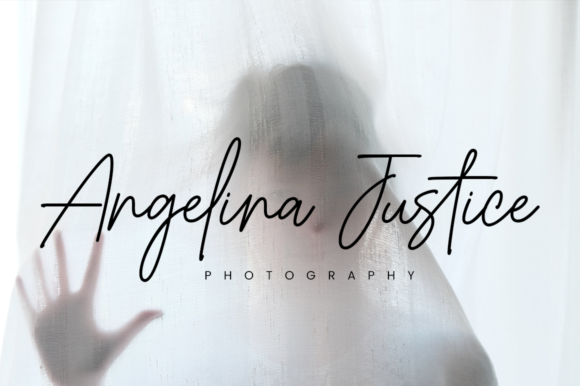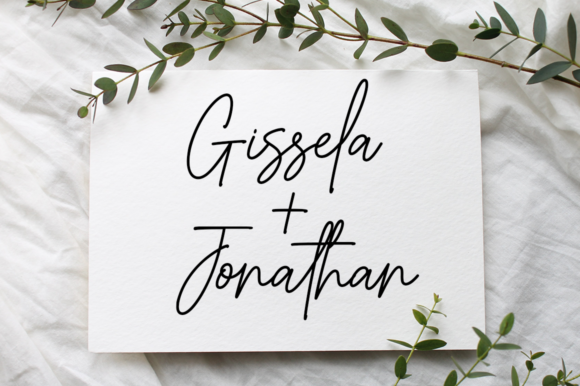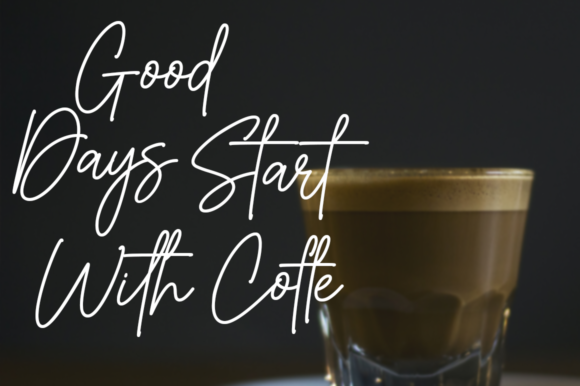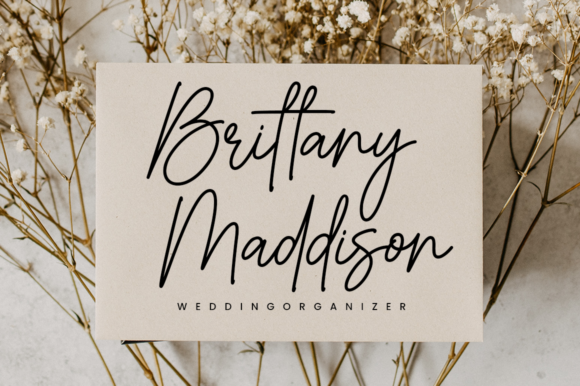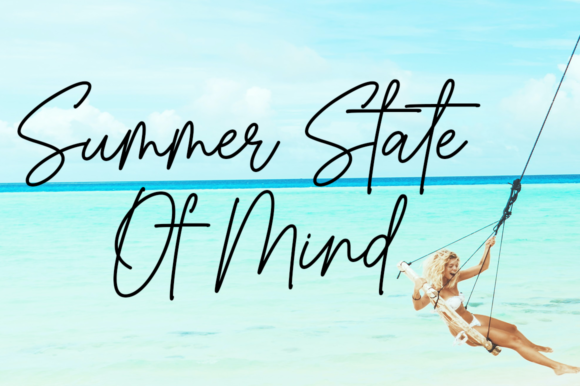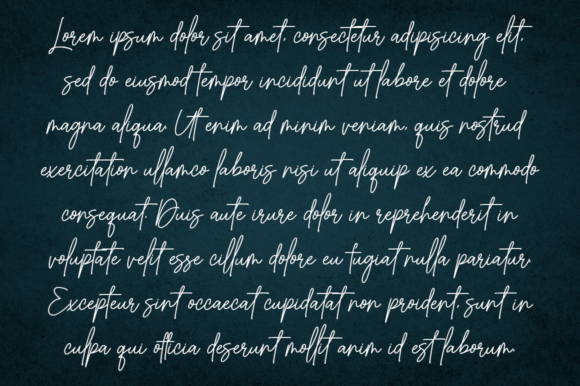
Introduction to Rockline Font
As a designer, there’s nothing quite like the rush of discovering a new, high-quality font that perfectly captures the essence of a creative project. For me, it was the moment I stumbled upon the Rockline Font – a delicate, thin-lettered handwritten font that seemed to whisper romance and elegance with every stroke.
With its PUA encoded design, accessing all the glyphs and swashes is a breeze, making it an absolute treasure trove for designers seeking to elevate their work. Whether you’re working on a free download project or a paid design resource, the Rockline Font is sure to bring a touch of sophistication and class to your creative endeavors. Its transparent background and high-quality design make it the perfect choice for designers who crave a little extra something special.
Key Features of Rockline Font
- High-quality font design, ideal for creative projects and design resources.
- Designed to be versatile and adaptable, suitable for various design applications, including logos, posters, and digital art.
- Features a unique, modern aesthetic that can add a touch of sophistication to any creative project.
Honest Review: Rockline Font
I recently had the chance to experiment with the Rockline Font, and I must say it’s a great addition to any design resource. The free download option was a nice surprise, making it accessible to designers of all levels.
The font itself has a high quality aesthetic, perfect for creative projects that require a modern and edgy look. I particularly appreciated the transparent background, which allows for seamless integration with various design elements.
- Modern and edgy design aesthetic
- High quality font
- May not be suitable for more traditional or formal designs
- Limited font family options
- Some users may find the font too bold or overpowering
Overall, I’m impressed with the Rockline Font. While it may not be perfect for every design project, it’s a great resource for creative designers looking for a modern and edgy look. With a little experimentation, I’m confident that designers can achieve amazing results with this font.
Common Use Cases for Rockline Font
The Rockline Font is ideal for creative projects, such as graphic design, digital art, and typography-based artwork. Its unique style makes it perfect for use in branding, logos, and marketing materials, as well as for adding a touch of personality to presentations and documents.